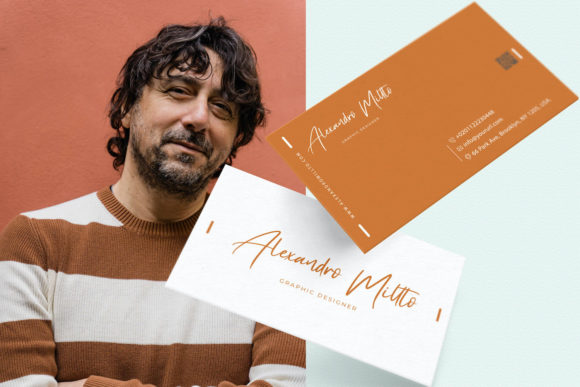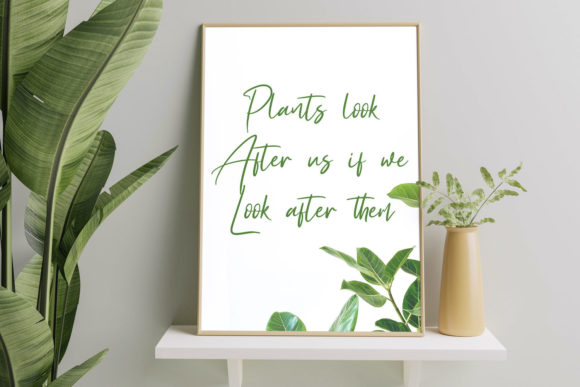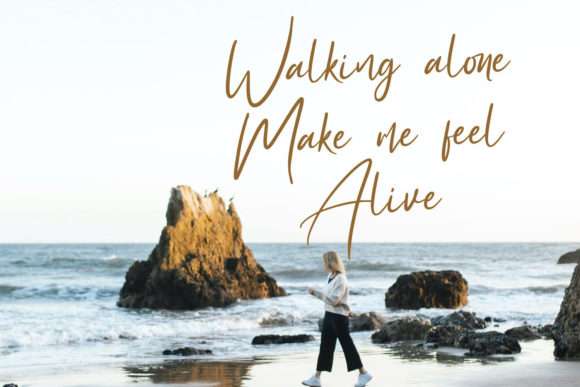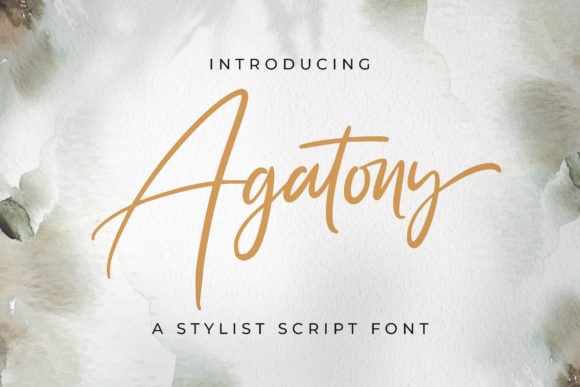
Introduction to Agatony Font
Agatony is a fashionable, refined script font that emanates sophistication and elegance.
It’s stylish alternates and ligatures make this font the perfect match for any project This font is PUA encoded which means you can access all of the glyphs and swashes with ease.